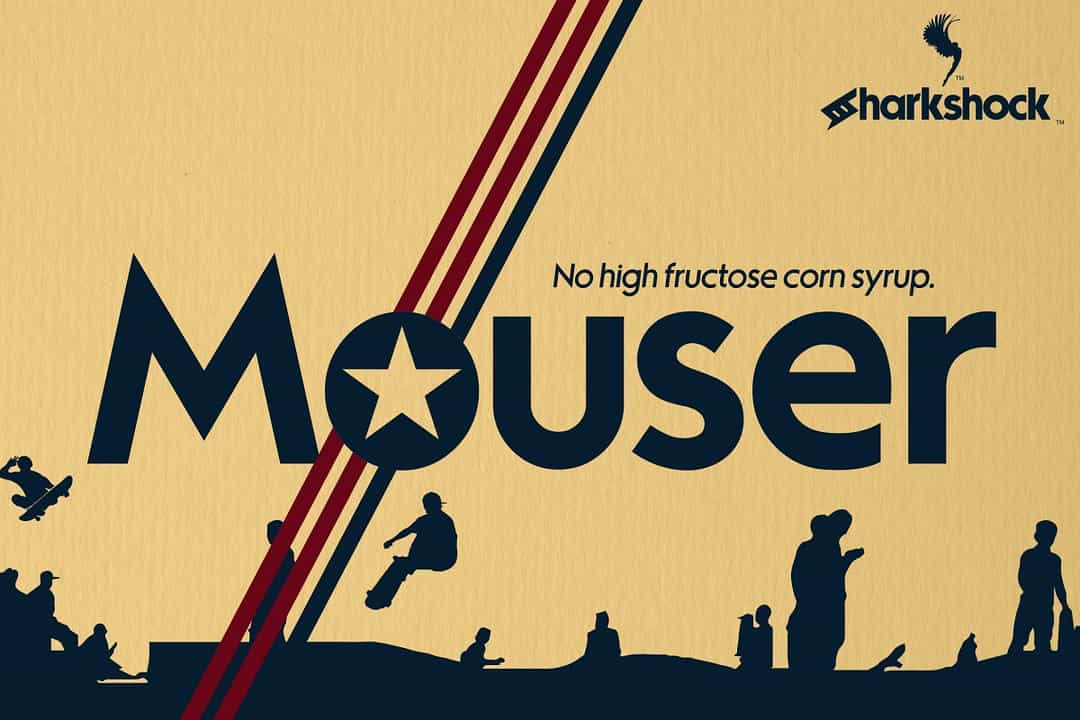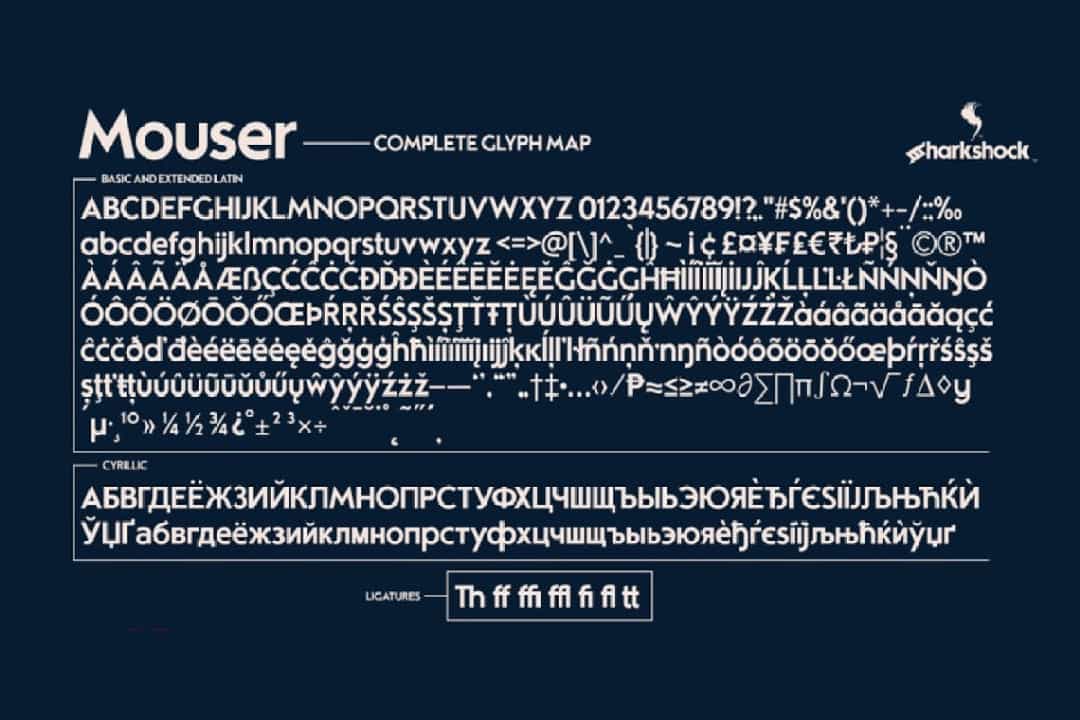
Mouser is an ongoing project that started as a geometric sans-serif of the same name, but later evolved into TypoGraphica family with similar yet completely distinct characteristics like low contrast, high visibility and tight spacing; although several modifications were made for an uncluttered yet cohesive appearance.